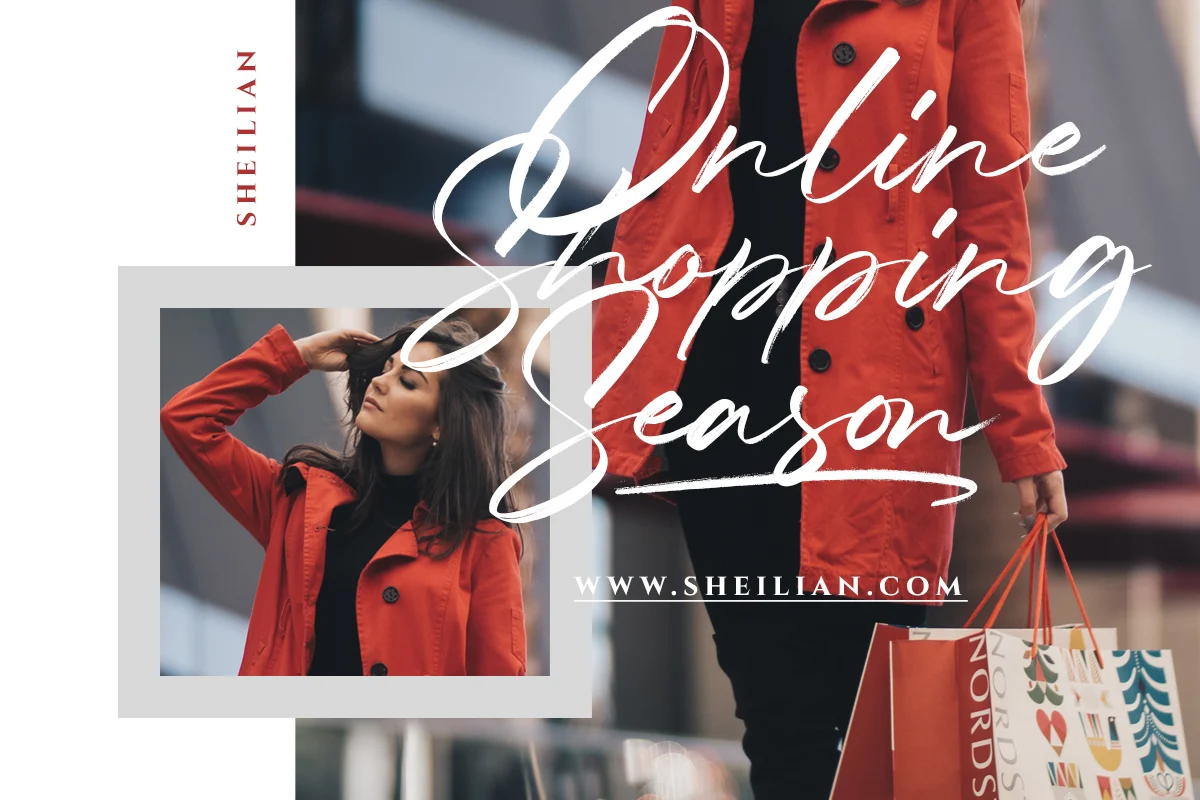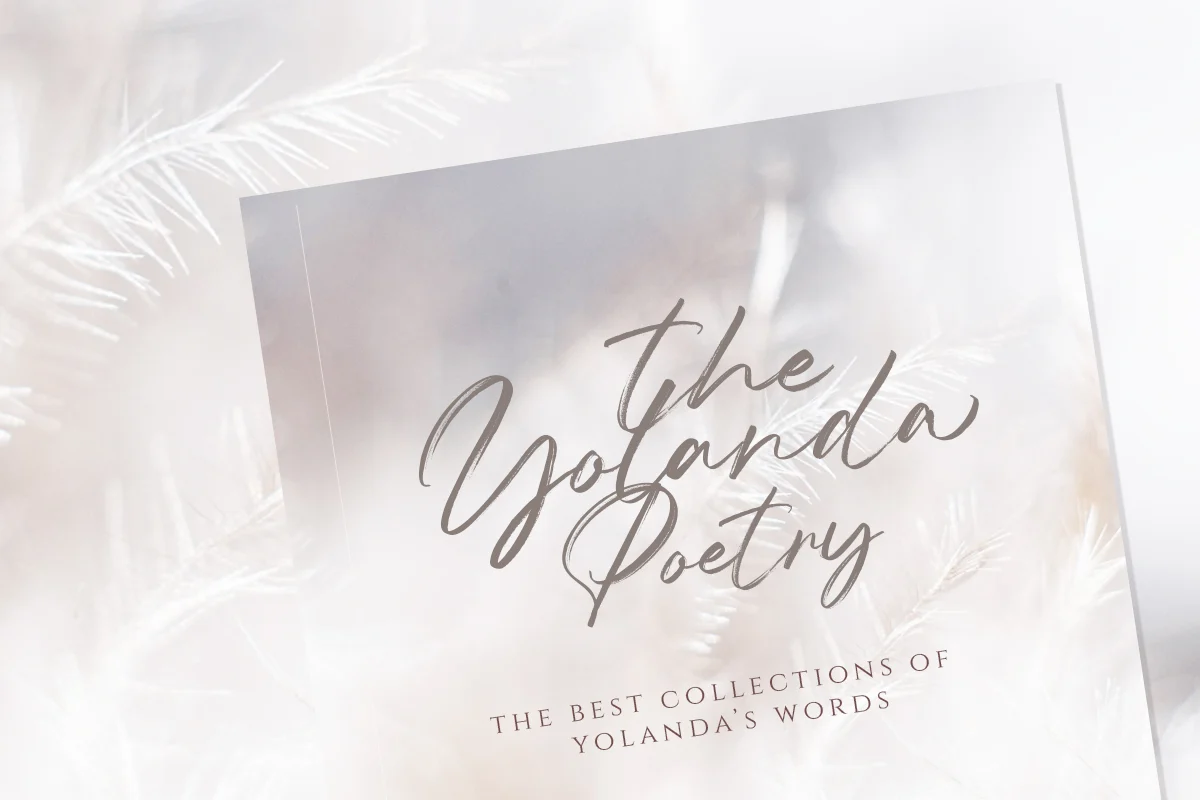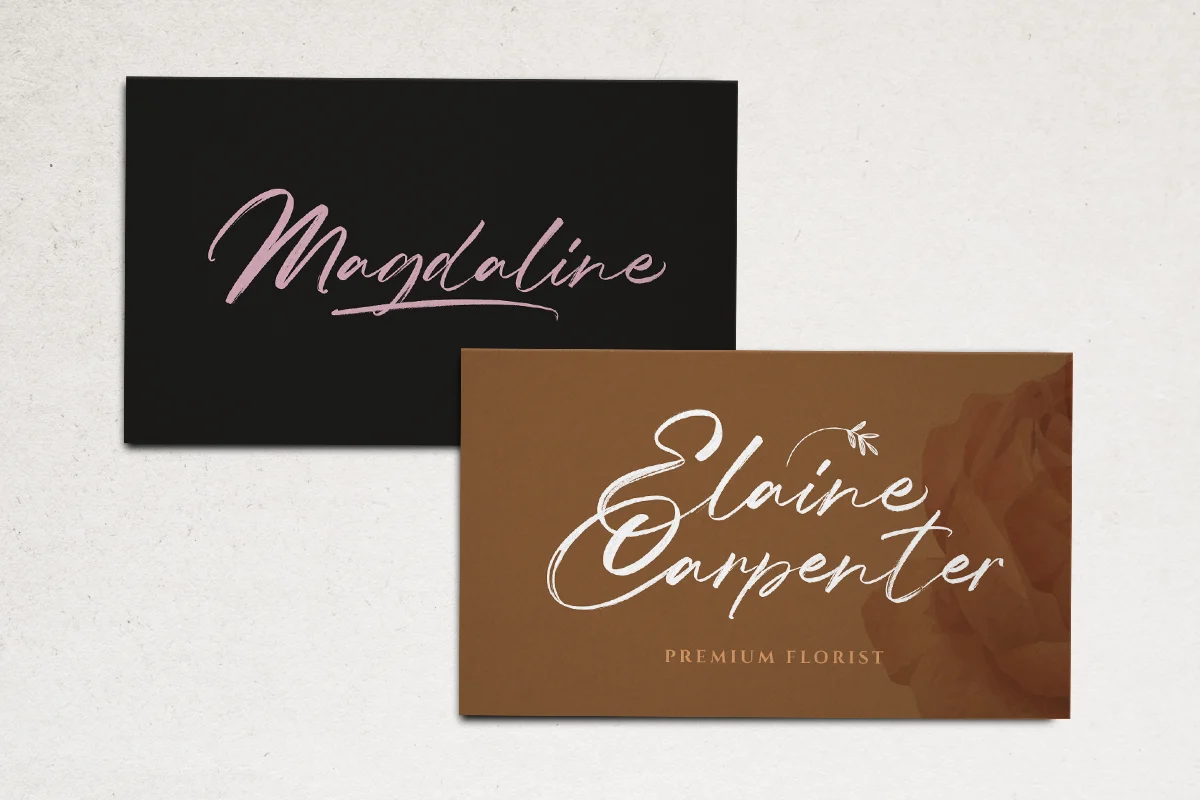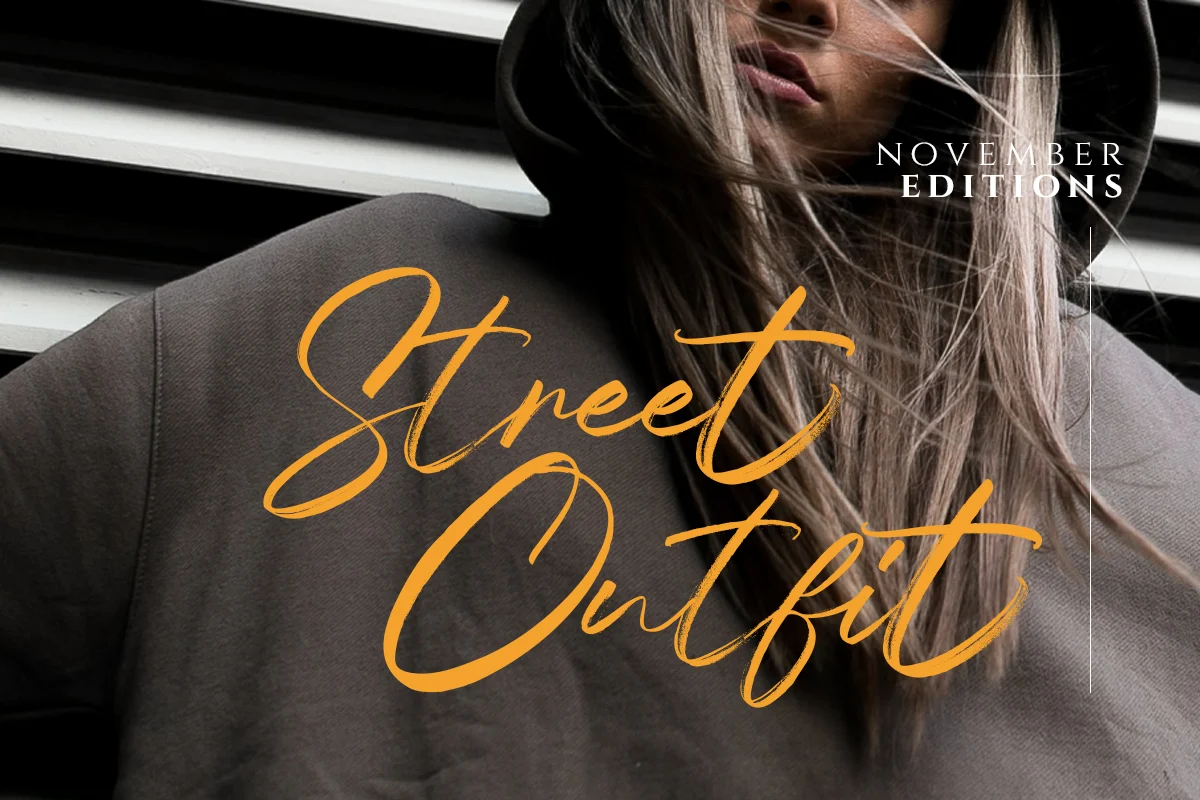
Compania – Luxury Signature Font
Introducing, Compania - Luxury Signature Script. The natural hand writing feel make this font makes it stands out. This font perfectly made to be applied especially in logo, and the other various formal forms such as invitations, labels, logos, magazines, books, greeting / wedding cards, packaging, fashion, make up, stationery, novels, labels or any type of advertising purpose.
- uppercase & lowercase
- numbers and punctuation
- multilingual
- ligatures
- alternates